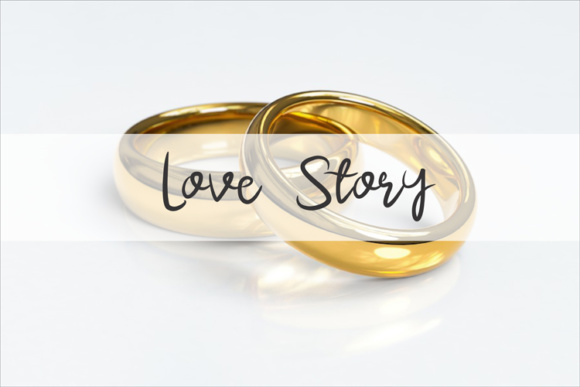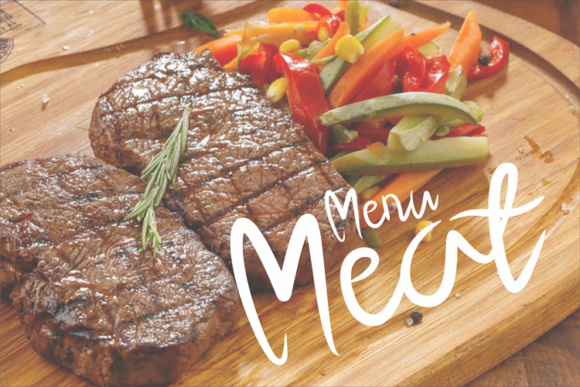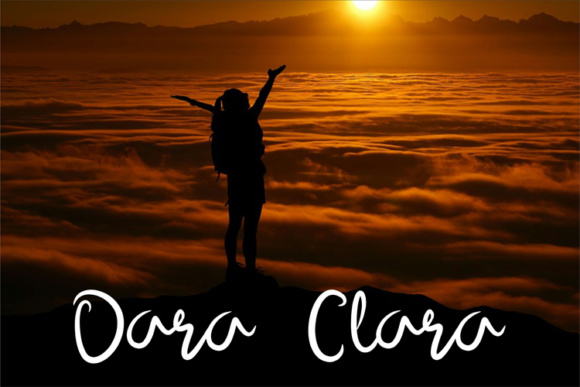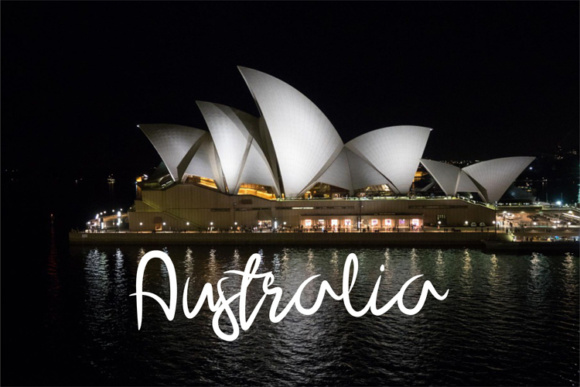
Dara Font: A Modern Calligraphy Font with a Handwritten Style
In the world of typography, fonts play a crucial role in conveying emotions and setting the tone for various design projects. For designers and crafters, finding the perfect font can be a daunting task, especially when looking for something unique and eye-catching. This is where the Dara font comes in – a modern calligraphy font with a handwritten style that has been gaining popularity among designers and crafters alike.
The Dara Font: A Brief Overview
The Dara font is a modern calligraphy font that boasts a beautiful, handwritten style. Its elegant and fluid lines make it perfect for a variety of design projects, from wedding invitations and party decorations to branding and advertising materials. The font’s unique and distinctive look sets it apart from other fonts, making it an excellent choice for designers looking to add a personal touch to their work.
Key Features of the Dara Font
The Dara font comes with several key features that make it an attractive option for designers and crafters. Some of its notable features include:
- Handwritten style: The Dara font has a beautiful, handwritten style that gives it a personal and unique touch.
- Elegant lines: The font’s elegant and fluid lines make it perfect for a variety of design projects, from formal events to branding and advertising materials.
- Modern calligraphy: The Dara font is a modern calligraphy font that combines traditional calligraphy techniques with modern design elements.
- Versatile: The font is versatile and can be used for a wide range of design projects, from digital designs to print materials.
Uses of the Dara Font
The Dara font is a versatile font that can be used for a wide range of design projects. Some of the most popular uses of the font include:
- Wedding invitations: The font’s elegant and romantic style makes it perfect for wedding invitations, save-the-date cards, and other wedding-related materials.
- Party decorations: The Dara font can be used to create beautiful party decorations, such as banners, garlands, and other DIY projects.
- Branding and advertising: The font’s modern and stylish look makes it an excellent choice for branding and advertising materials, such as logos, brochures, and business cards.
- Digital designs: The Dara font can be used for digital designs, such as social media graphics, blog posts, and website headers.
Benefits of Using the Dara Font
There are several benefits to using the Dara font in your design projects. Some of the most notable benefits include:
- Unique and eye-catching: The Dara font is a unique and eye-catching font that can help your design projects stand out from the crowd.
- Personal touch: The font’s handwritten style gives it a personal touch that can help you connect with your audience.
- Versatile: The Dara font is versatile and can be used for a wide range of design projects.
- Elegant and sophisticated: The font’s elegant and sophisticated look makes it perfect for formal events and high-end branding projects.
Tips for Using the Dara Font
To get the most out of the Dara font, here are some tips to keep in mind:
- Use it sparingly: The Dara font is a beautiful font, but it can be overwhelming if used too much. Use it sparingly to create a sense of elegance and sophistication.
- Pair it with other fonts: The Dara font can be paired with other fonts to create a unique and interesting look.
- Experiment with colors: The font’s elegant lines and beautiful style make it perfect for experimenting with different colors and textures.
In conclusion, the Dara font is a modern calligraphy font with a handwritten style that is perfect for designers and crafters looking to add a personal touch to their work. Its elegant lines, versatile style, and unique look make it an excellent choice for a wide range of design projects. Whether you’re looking to create wedding invitations, party decorations, or branding materials, the Dara font is sure to impress.